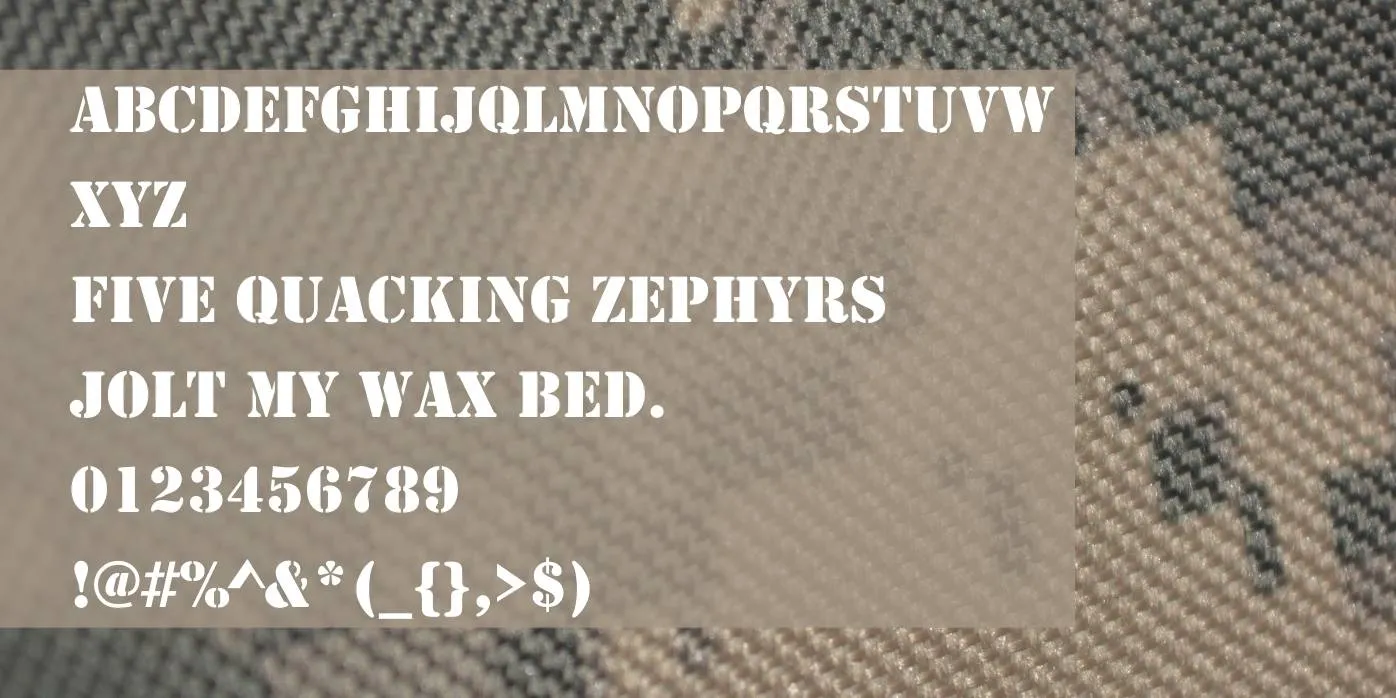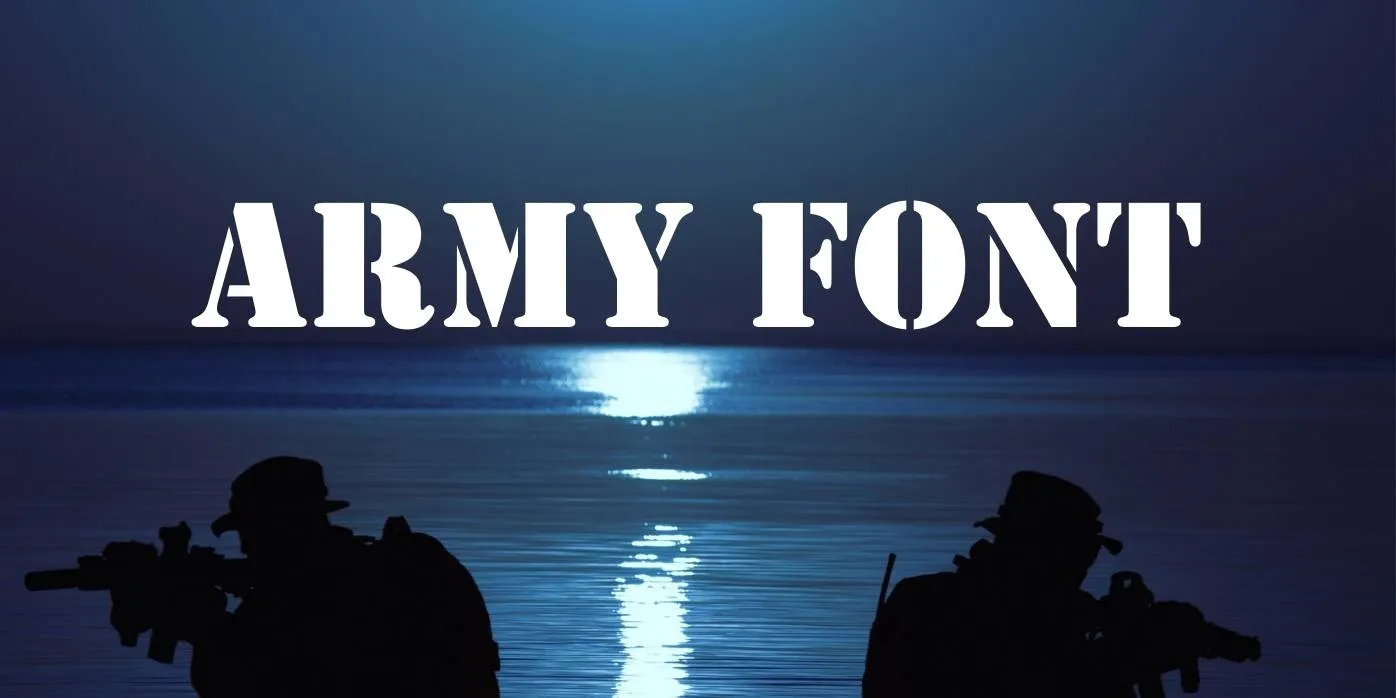
Army Font
Army Font is the high standard and high visible typeface which can be known by its appearance. It belongs to a fancy font family. The designer of this typeface is Vic Fieger and it is available for free for personal use. This TrueType feature font has eye catchy bold characters with cutting alphabetic and condensed textures.
The font has beautiful bold characters with cutting alphabetic and condensed look. It includes Uppercase letters, Numbers, and Numerals, and gorgeous symbols also. It has the best pairing nature with other related fonts as well like you can make amazing things with the pairing or Intro Rust Font. You may also generate this typeface by the generator tool even without downloading.